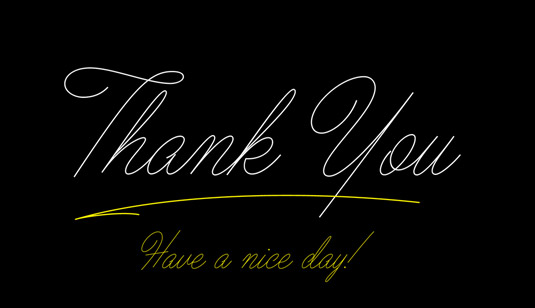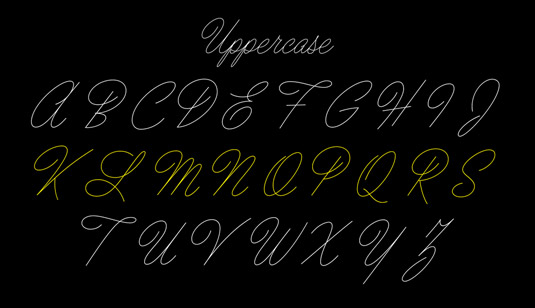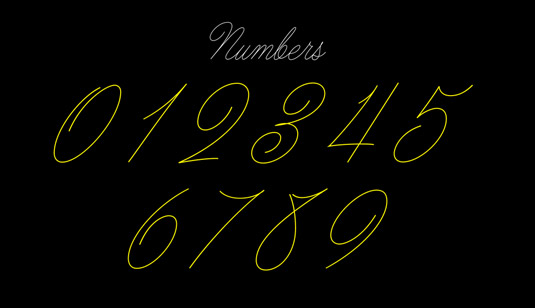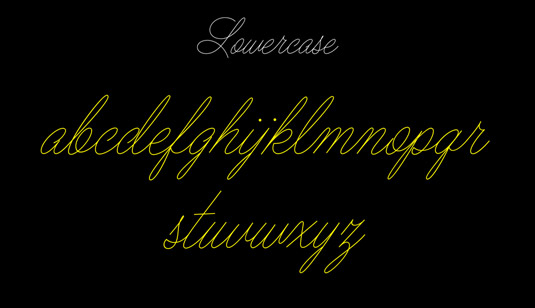
Font of the day: Ballpoint
Ballpoint by Drew Melton
Todays font of choice is handwritten script Ballpoint by type designer Drew Melton. "Ballpoint script is all about adding a personal touch," Melton comment on his website. "I've always dreamed of designing a font that feels like friendly a note written with a BIC ballpoint pen.
"Ballpoint's smooth, single-weight lines and charming variations provide the ideal balance of humanity and clarity. This font is especially well suited for branding and marketing campaigns where personality and friendliness is a requirement."